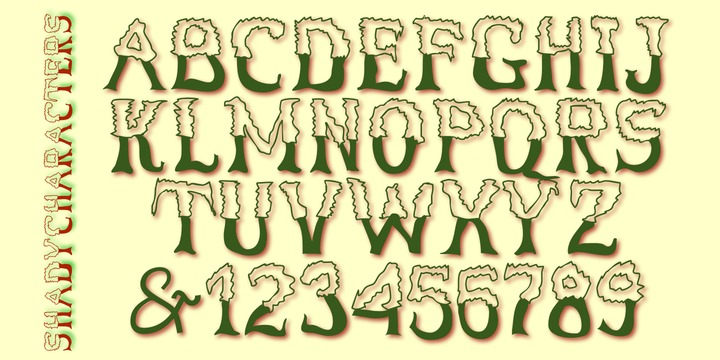
• ShadyCharacters™
ShadyCharacters is an all-caps font with a ziggy, hollow top and a solid bottom. With lots of imagination, you might see the letters as tree-like, hence its name.